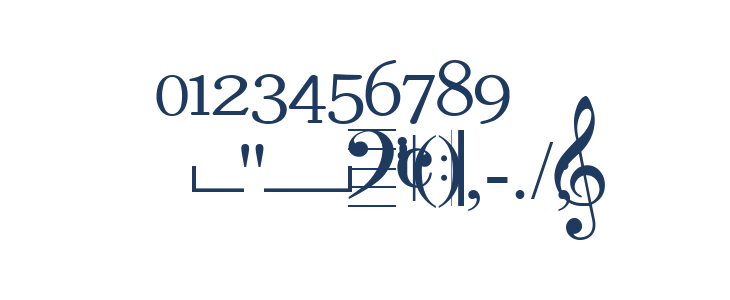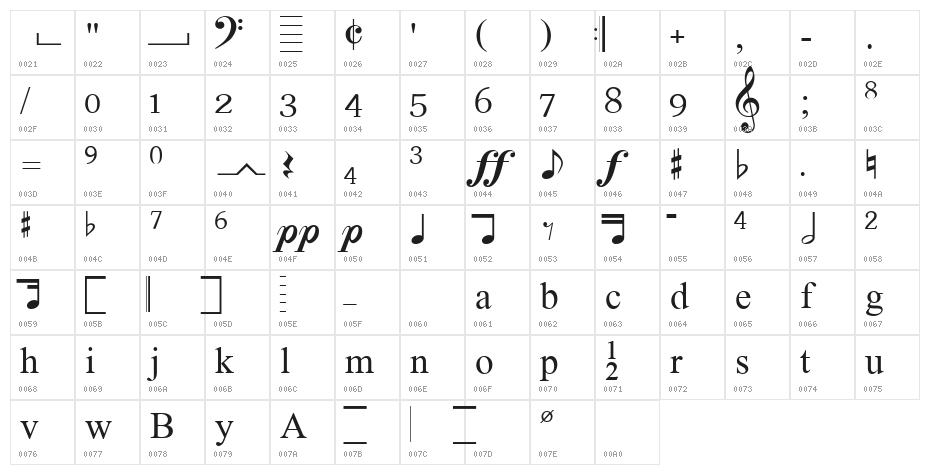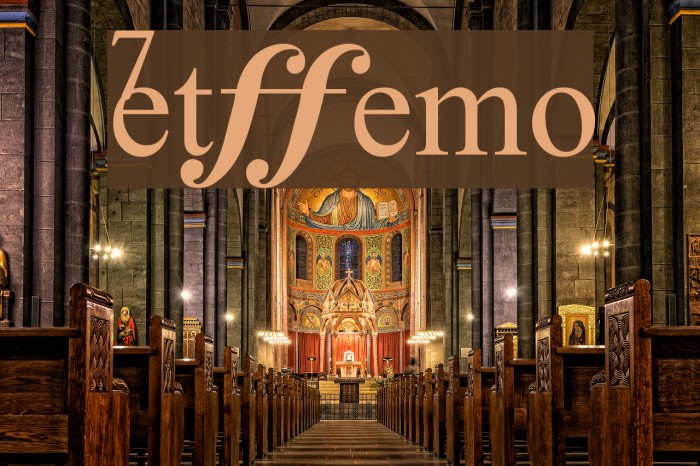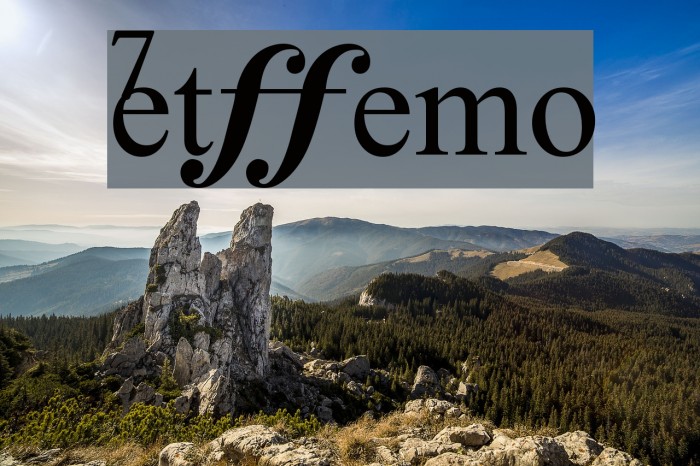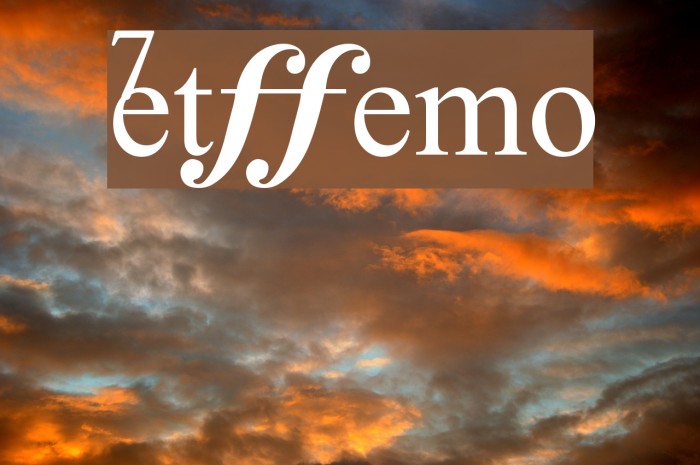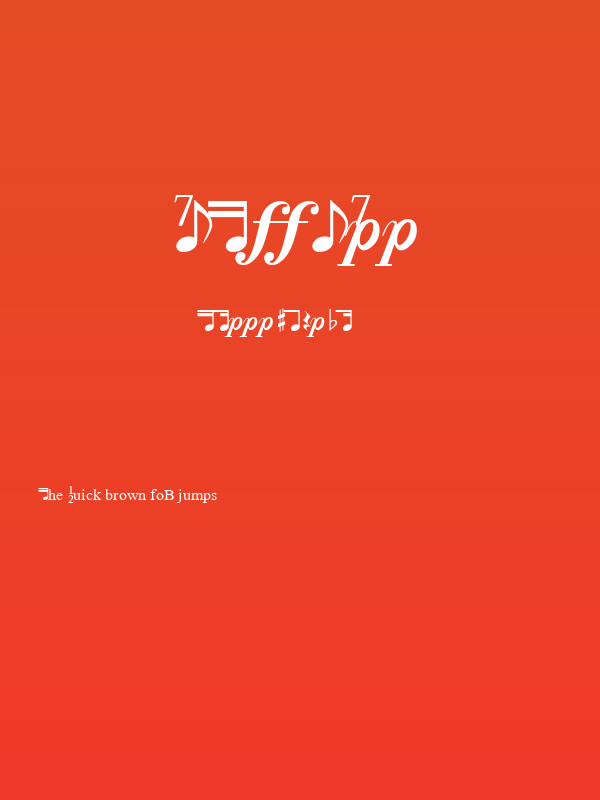
MetDemo Font
MetDemo Description
This font is a unique blend of musical notation and traditional letterforms, creating a visually striking and artistic appearance. The uppercase and lowercase letters are elegantly crafted, with a classic serif style that adds a touch of sophistication. The numerals are bold and clear, ensuring readability. Special characters include musical symbols like notes and sharps, which integrate seamlessly with the text, making it ideal for creative projects that require a musical theme. The overall design is both decorative and functional, offering versatility for various applications.
| Use Case | Headlines, Logos, Artistic projects |
| Proposed Projects | Ideal for music-themed posters, album covers, educational materials, and creative branding. |